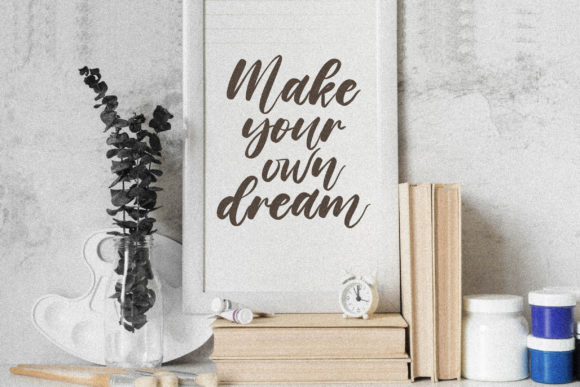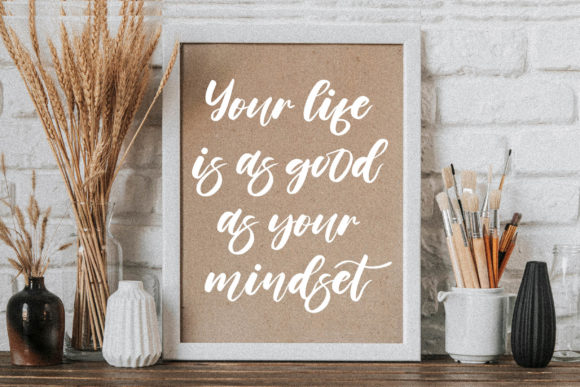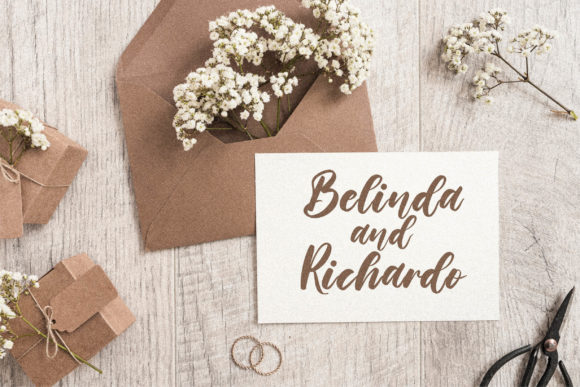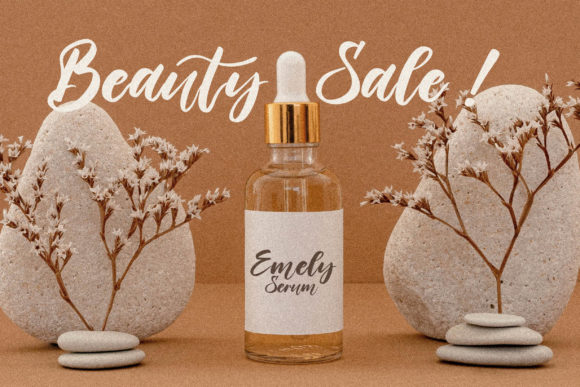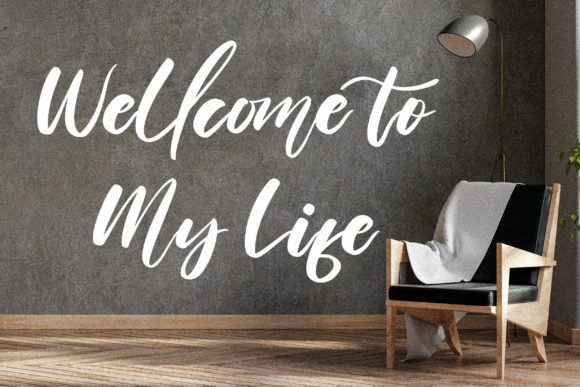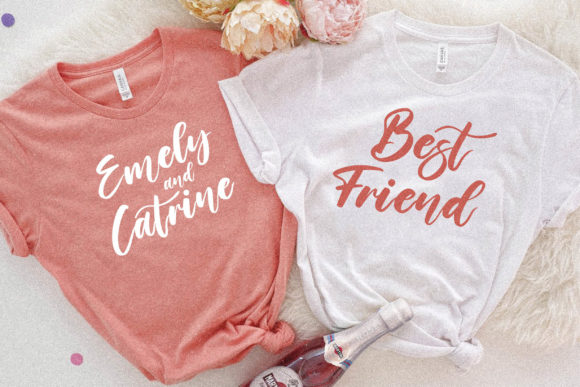
Unlocking the Art of Luxury Typography
Have you ever found yourself scribbling down a love letter or a heartfelt message, only to be interrupted by the perfect font to match the emotions you’re pouring onto the page? That’s exactly what happened to us when we discovered the Helloria Abigail Font – a romantic and sweet calligraphy typeface that brings a touch of luxury to any design project.
With its elegant characters that dance along the baseline, the Helloria Abigail Font is a game-changer for designers seeking to add a touch of sophistication to their work. This beautiful font is PUA encoded, making it easy to access all the amazing glyphs and ligatures that will elevate your designs to new heights. Whether you’re a seasoned designer or a creative enthusiast, the Helloria Abigail Font is an invaluable addition to your typography arsenal.
Helloria Abigail Font Key Features
- Unique Characteristics: Features a beautiful, elegant script with a mix of cursive and calligraphy styles, perfect for titles, headings, and invitations.
- Language Support: Designed to support multiple languages, including Latin, Cyrillic, and Greek scripts.
- Font Style: Available in a single font style, with multiple weights and ligatures to enhance readability and visual appeal.
Designer Review: Helloria Abigail Font
As a designer, I had the chance to work with Helloria Abigail Font, and I must say it’s a unique and charming addition to any project. ✨ The intricate details and organic feel of this script font make it perfect for adding a touch of elegance and sophistication to your designs.
Here are some of the things that I think work well with Helloria Abigail Font:
- ✨ Organic feel: The font’s handwritten feel makes it perfect for projects that require a personal and touchy-feely approach.
- ✨ Intricate details: The intricate flourishes and swashes add a level of depth and visual interest to your designs.
- ✨ Versatility: Helloria Abigail Font works well in a variety of contexts, from invitations and wedding stationery to editorial and advertising design.
However, as with any font, there are some limitations to consider:
- ⚠️ Limited legibility: At small sizes, the font can become difficult to read due to its intricate details and tight spacing.
- ⚠️ Limited character set: The font’s character set is limited, which can make it difficult to use for longer blocks of text.
Overall, I think Helloria Abigail Font is a great addition to any designer’s toolkit. While it may have some limitations, its unique feel and versatility make it a great choice for projects that require a touch of elegance and sophistication.
Tips for Getting the Most Out of Helloria Abigail Font
Use Helloria Abigail Font for titles, headings, and other prominent text elements.
Pair it with elegant graphics and images to create a sophisticated design.
Wedding invitations, greeting cards, and other formal invitations.
Business cards, letterheads, and other corporate materials.
Magazine and book covers, as well as other print materials.
Alternatives to Helloria Abigail Font
1. Carolyna Pro Font
Carolyna Pro is a elegant script font suitable for formal invitations, wedding designs, and luxury branding. It features flowing connections and a sophisticated feel, making it a great choice for high-end designs. In comparison to Helloria Abigail, Carolyna Pro has a more refined and classic appearance, while Helloria Abigail has a more whimsical and playful feel.
Great Vibes is a modern script font that exudes a sense of relaxation and sophistication. It’s ideal for beach-themed designs, travel brochures, and wellness branding. Compared to Helloria Abigail, Great Vibes has a more laid-back and casual feel, while Helloria Abigail has a more romantic and feminine appearance.
Alex Brush is a beautiful, handwritten font that’s perfect for creative and artistic designs. It features a unique, brush-like feel that adds a touch of personality to any project. In comparison to Helloria Abigail, Alex Brush has a more organic and hand-crafted appearance, while Helloria Abigail has a more polished and refined look.